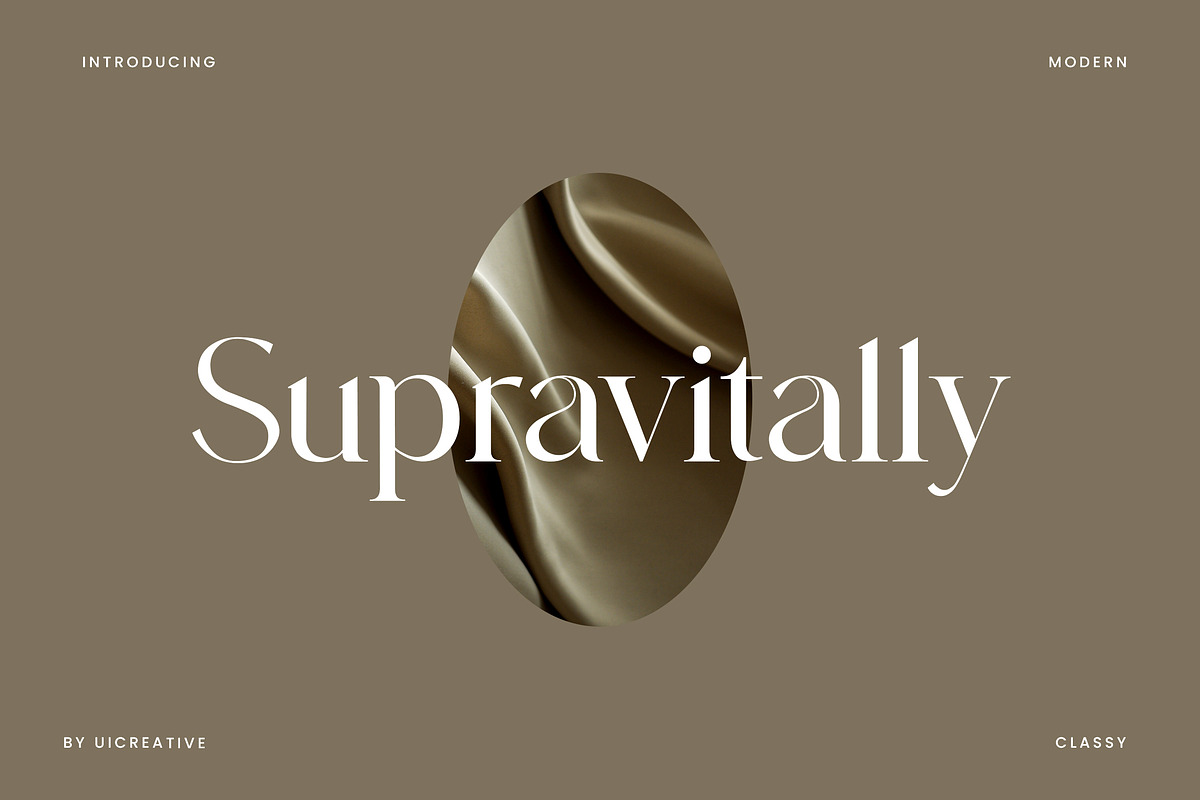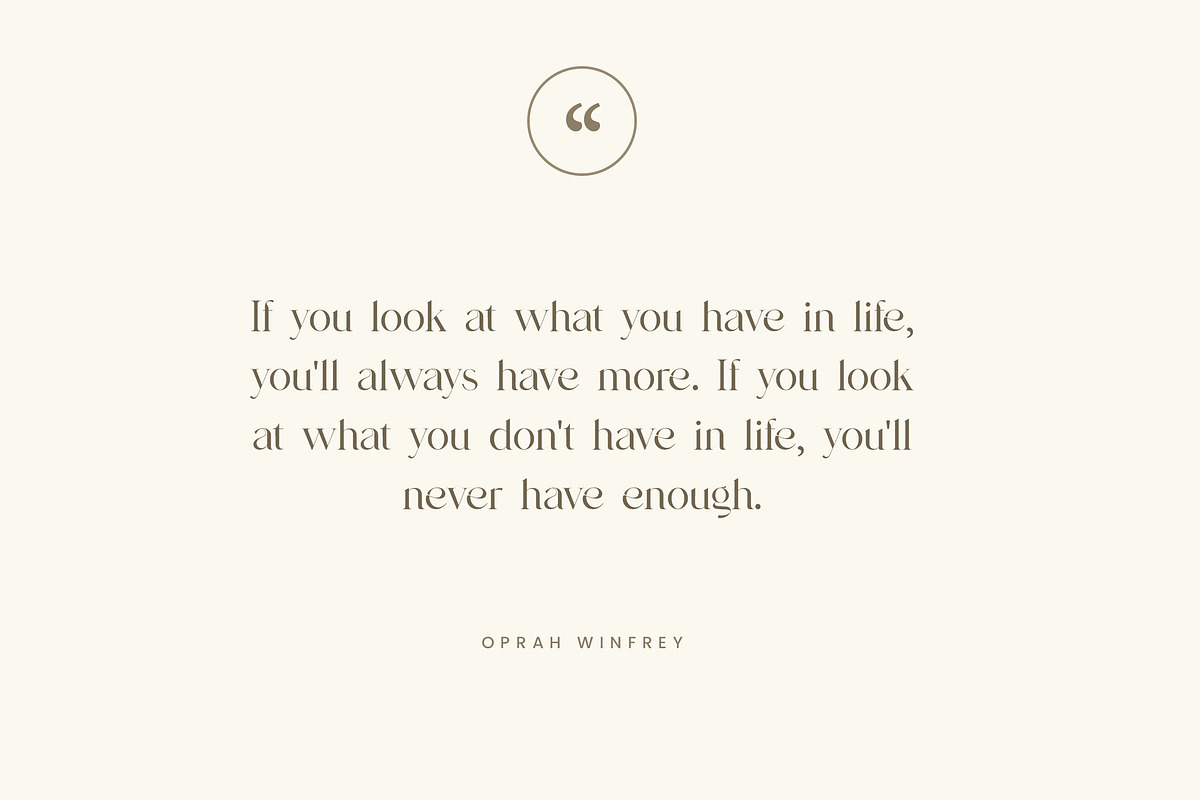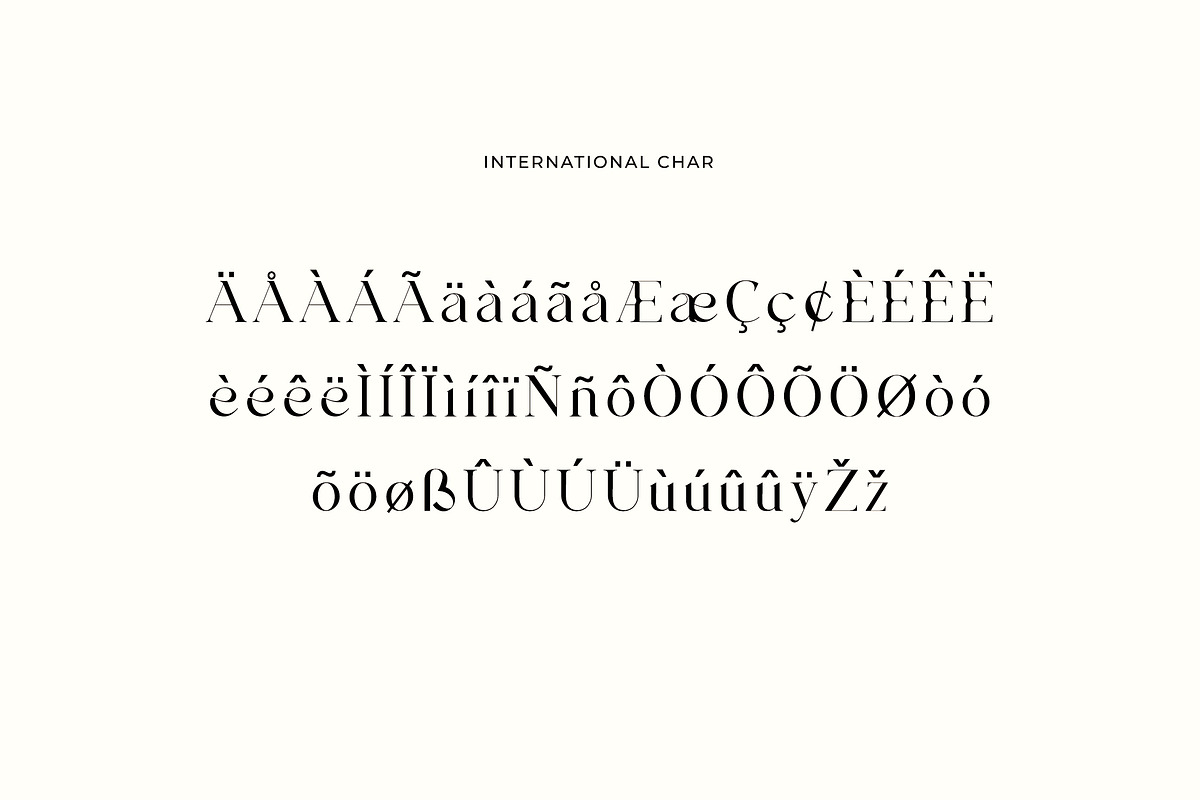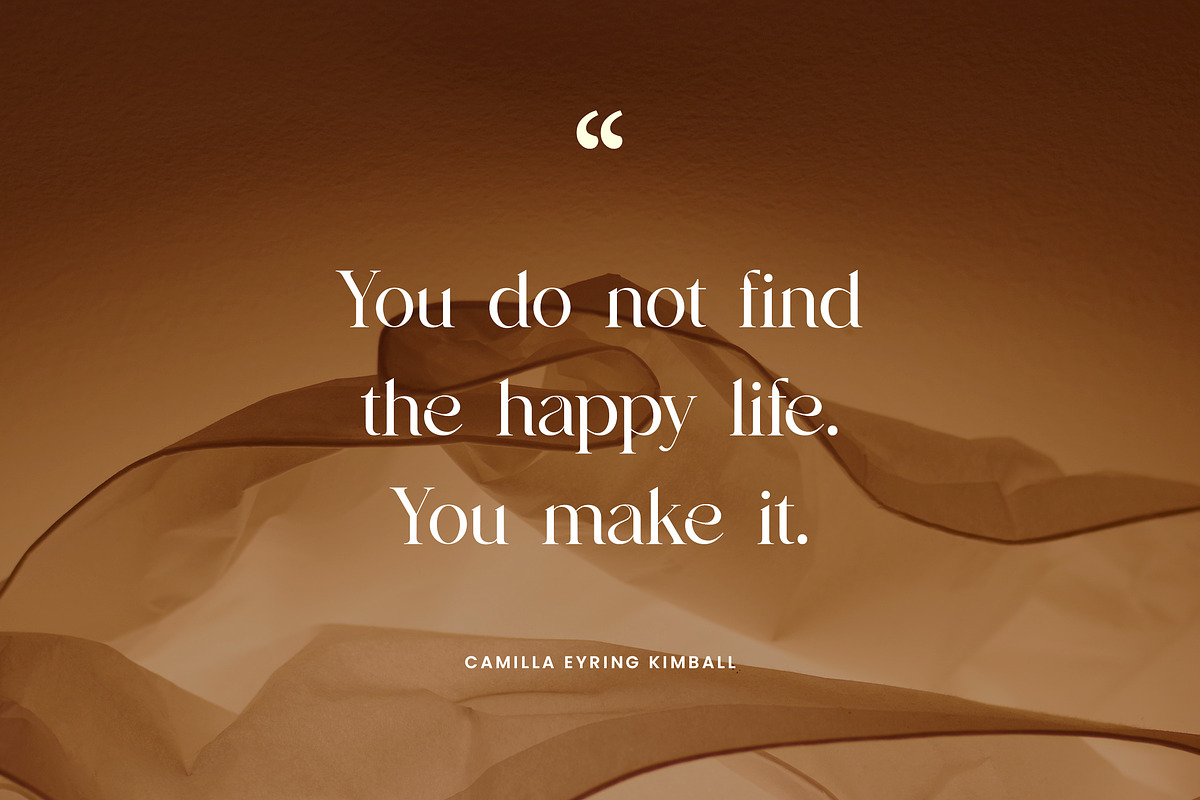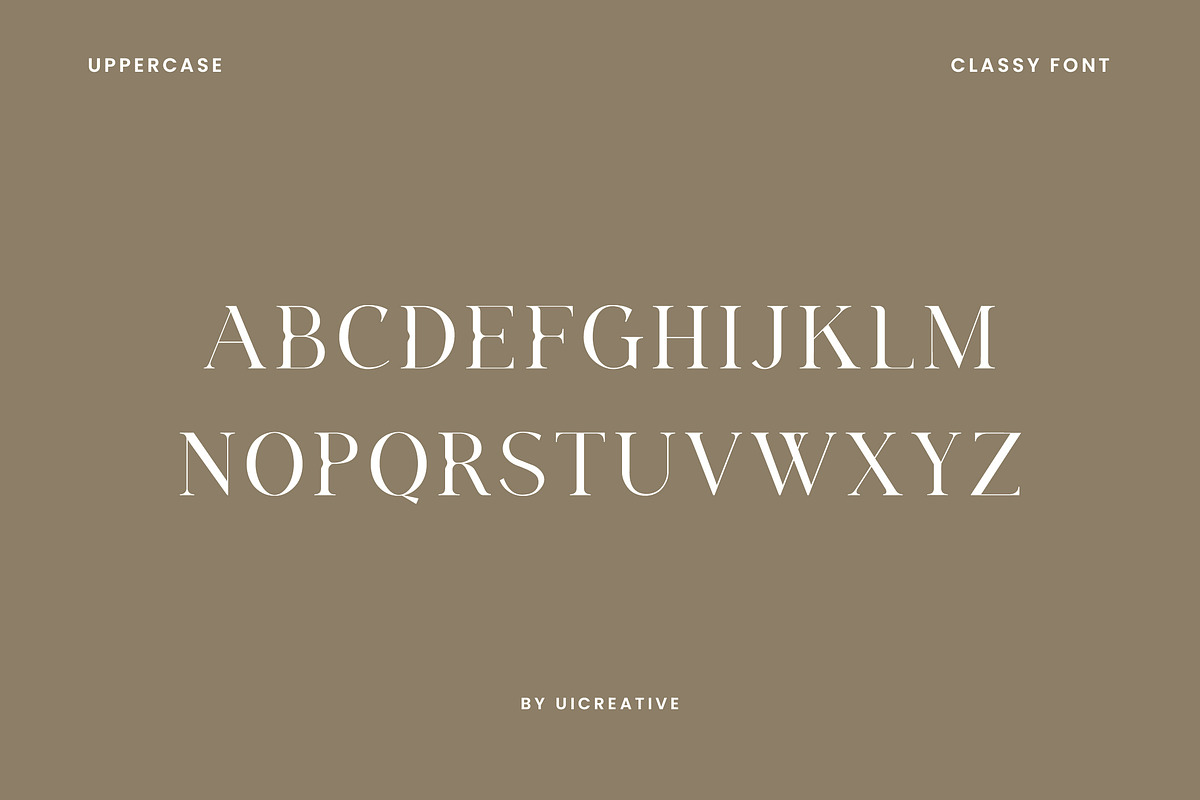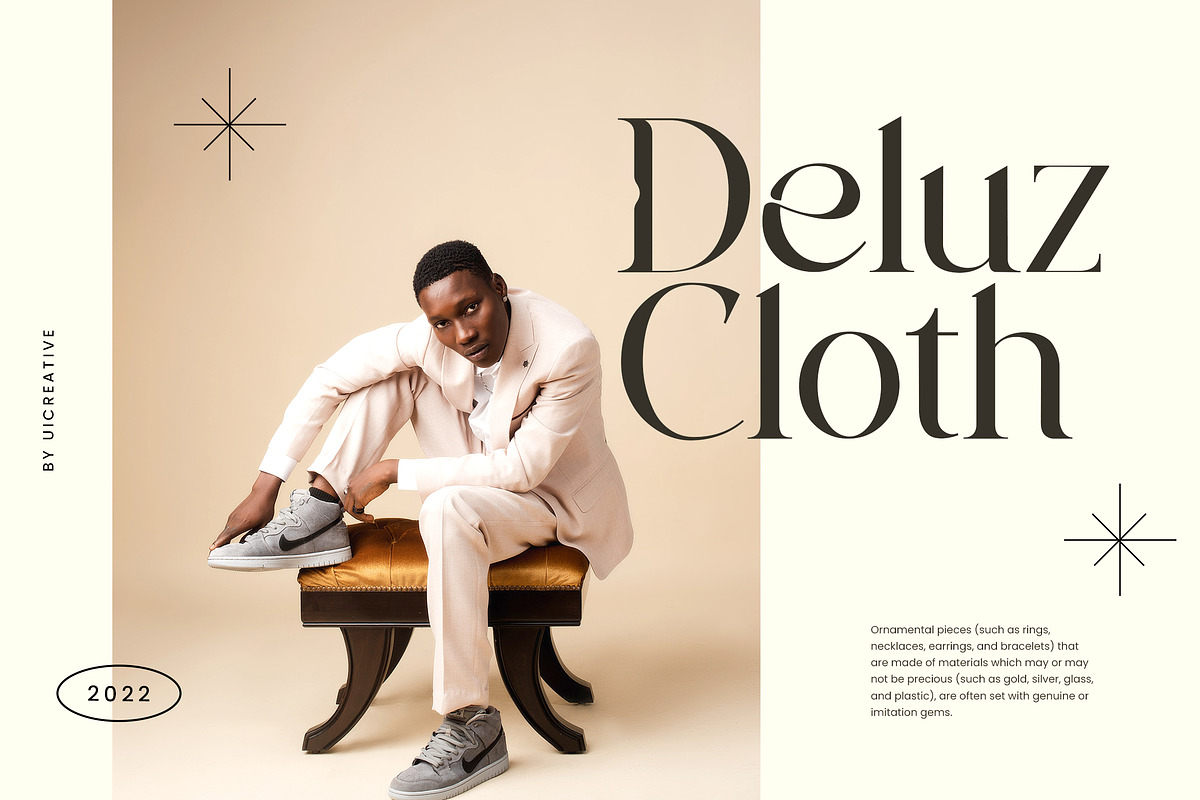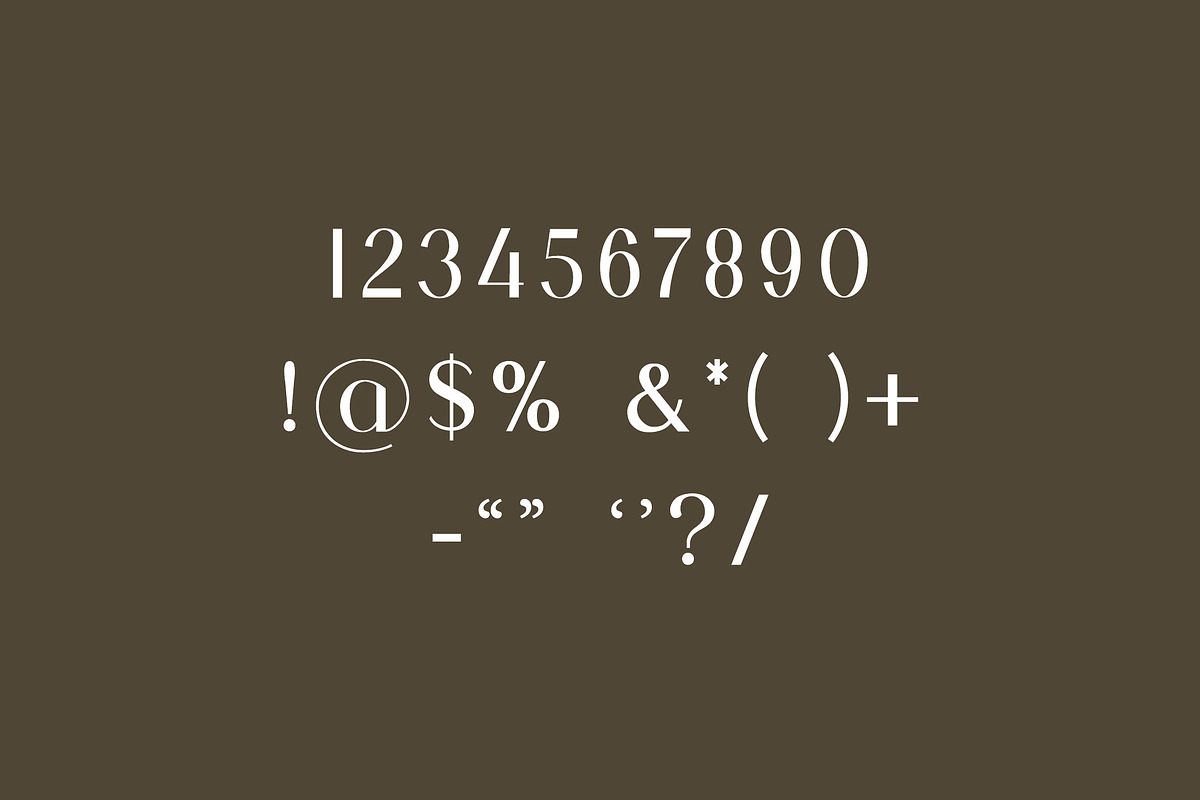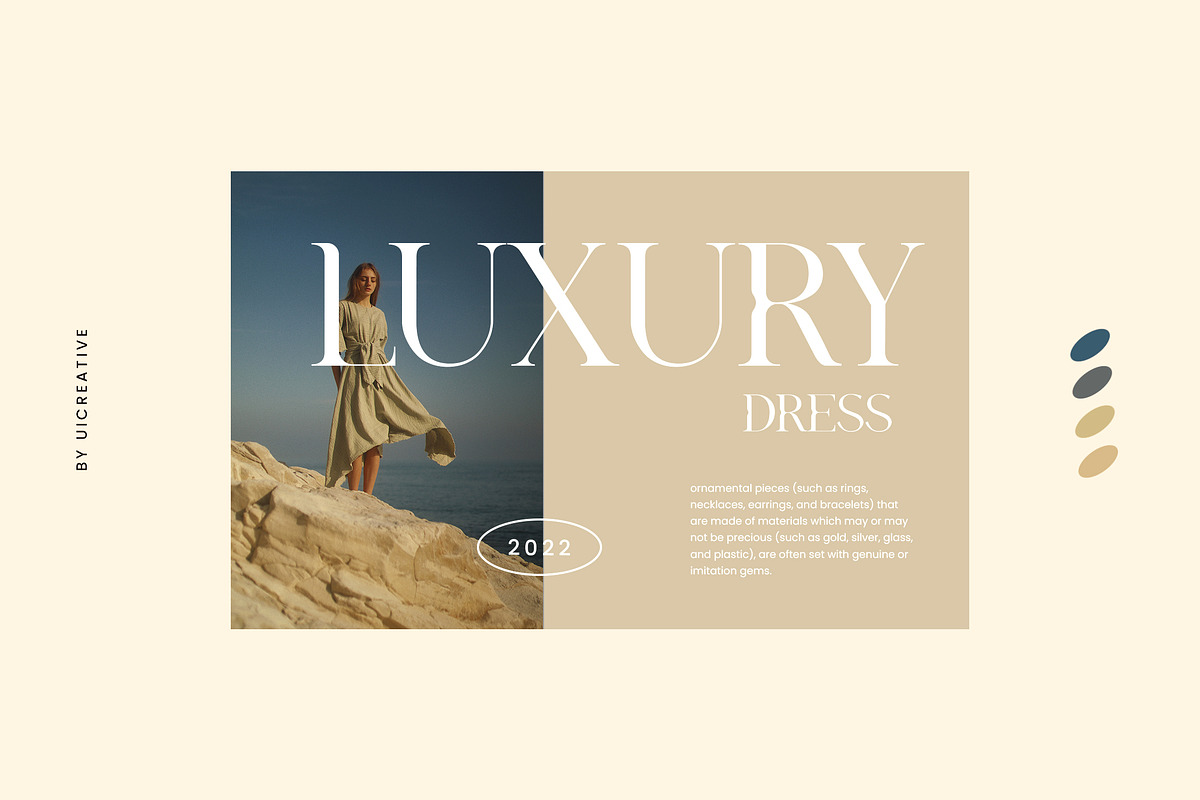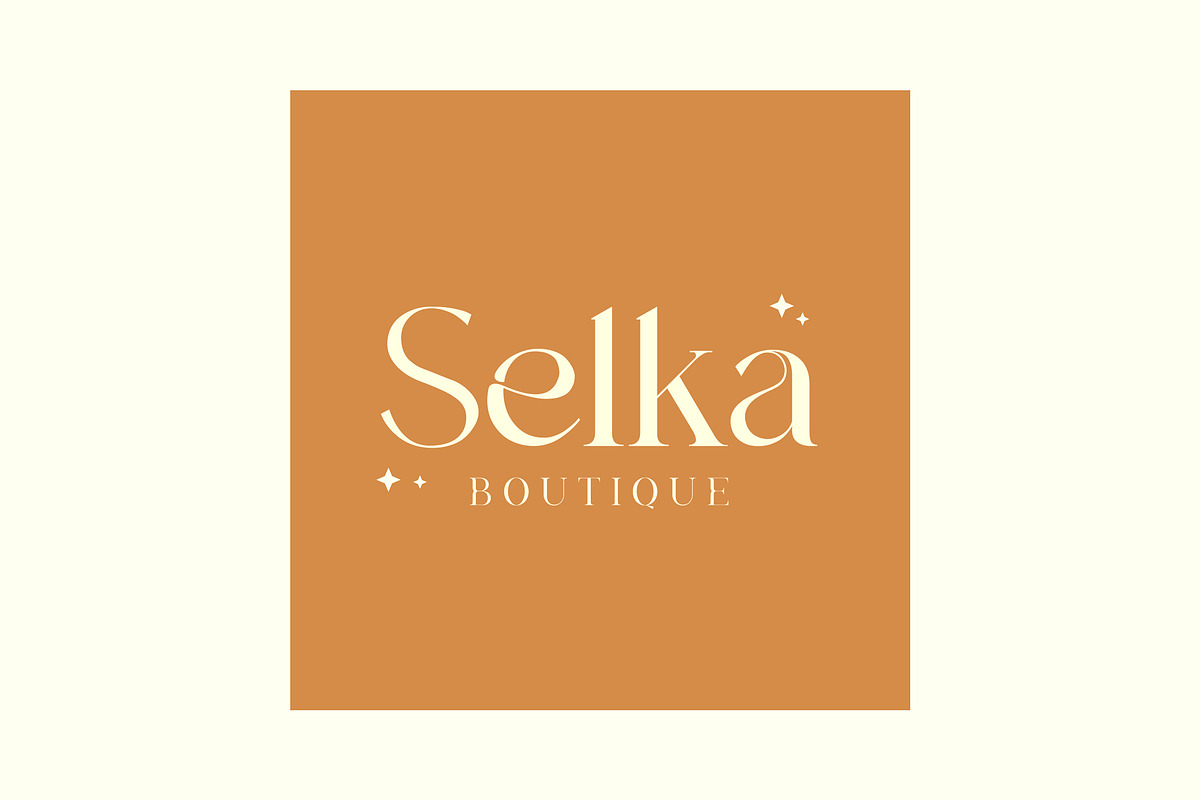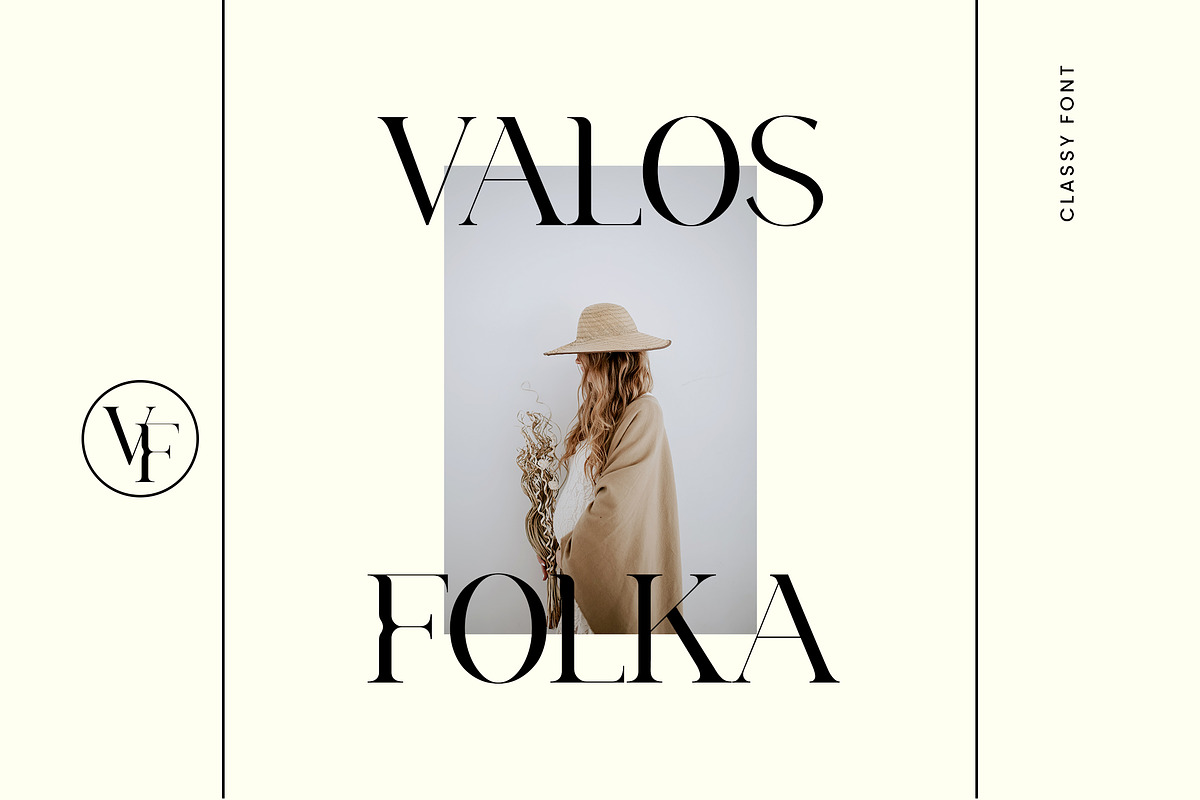
Supravitally Luxury Serif Font
Introducing our new product the name is Supravitally Luxury Serif Font. Modern Serif font that feels beautiful classy, elegant, and modern. This font is ideally suited for a wide variety of projects, such as signature, stationery, logo, wedding, typography quotes, magazine or book covers, website headers, clothing, branding, packaging design, and more. Also, fashion-related branding or editorial design displays both masculine and feminine qualities.